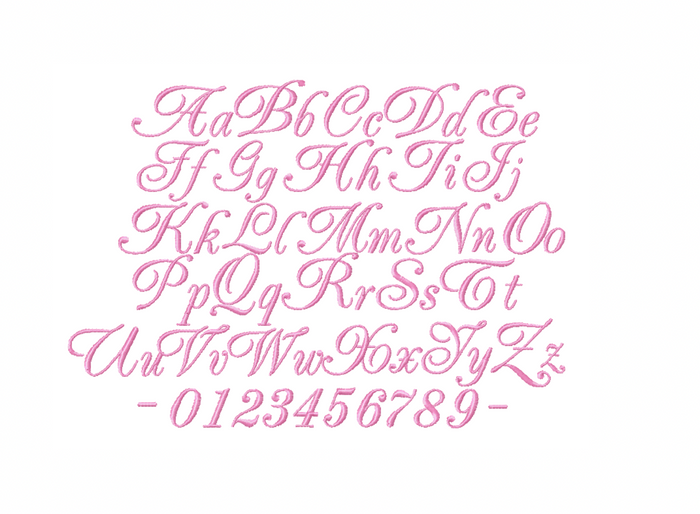
Anna Claire Satin Stitch 4x4 Font
The Anna Claire Satin Stitch Font package is a satin stitch font including uppercase and lowercase letters A-Z as well as numbers 0-9 and a dash symbol for dates.